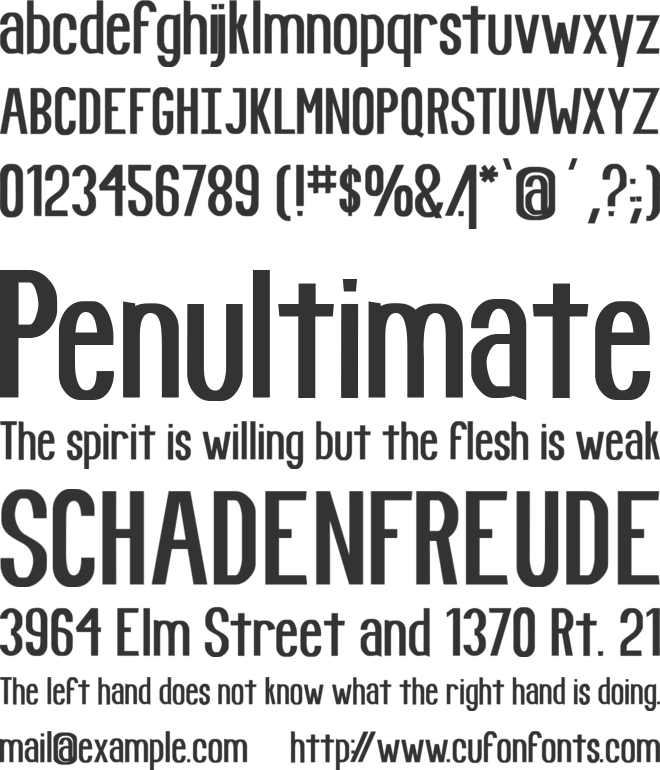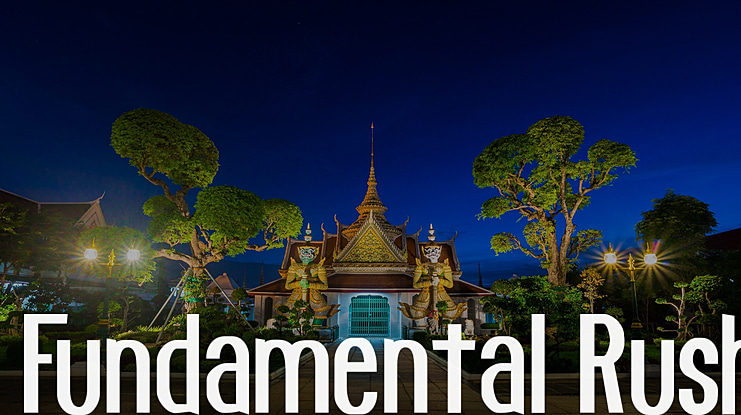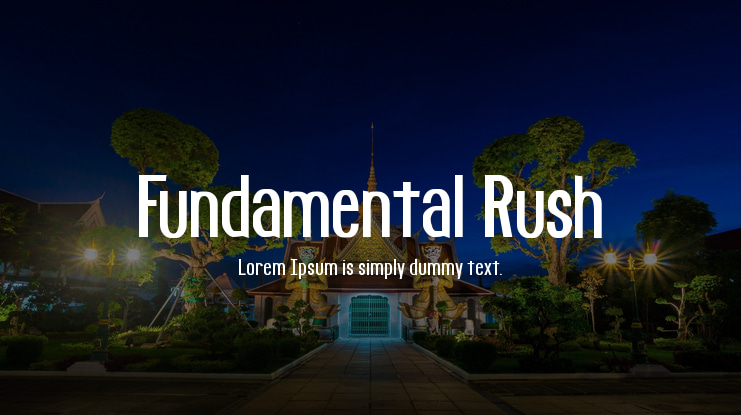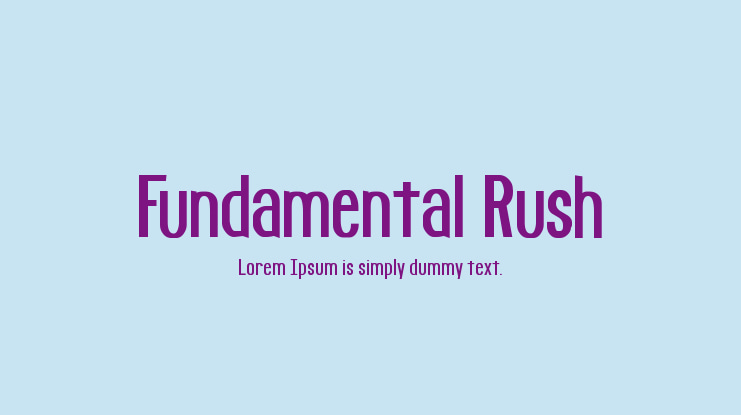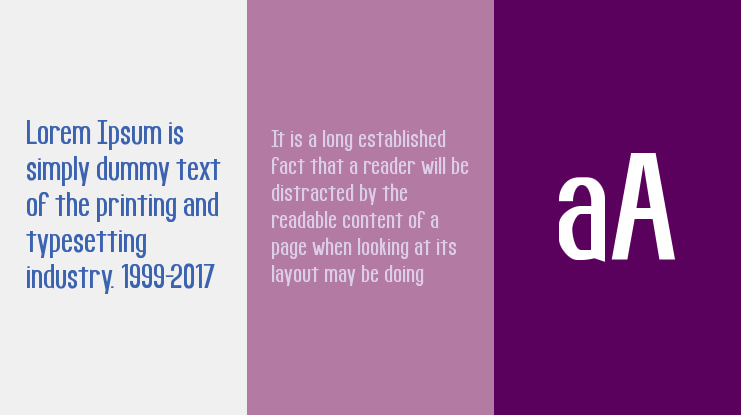
Fundamental Rush Font
This version includes upper and lowercase letters, punctuation, and many international characters.
I made the letters like this because it reminds of many of the signs I see around town advertising the elections - very plain and tall. I chose the name in honor of Rush Limbaugh, the conservative talk radio host, and Fundamentalist Christians, who are very involved in the political process. I don't necessarily agree with either of them all the time, but I think from time to time they have good points.